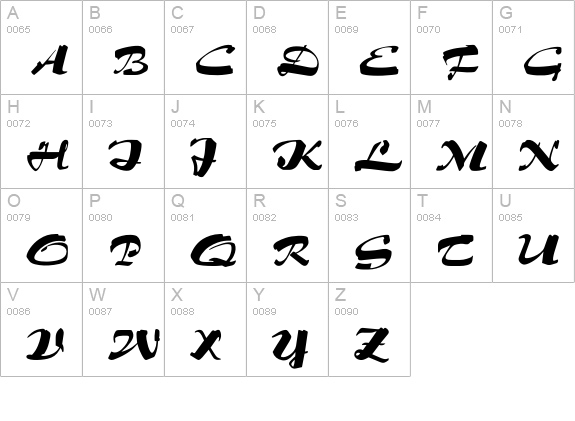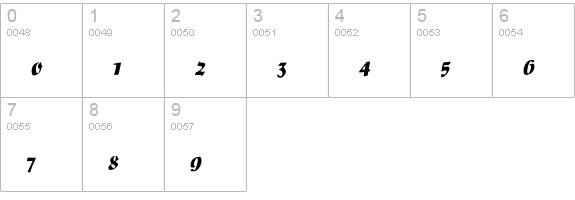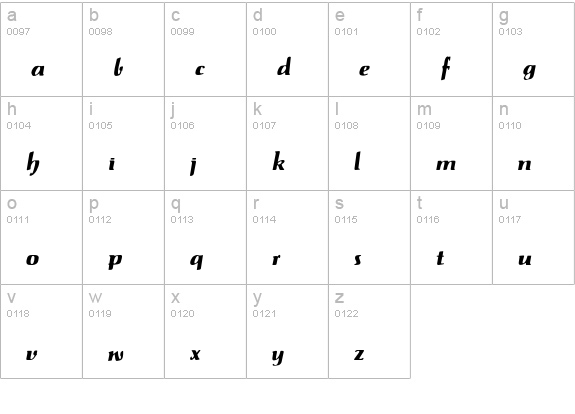
SaltoFont Font Details
SaltoFont is a stunning font that effortlessly combines elegance and versatility. With its sleek and modern design, this font is perfect for a wide range of creative projects, from branding and logo design to website headers and magazine layouts. What sets SaltoFont apart is not just its captivating aesthetic appeal, but also the fact that it is available for free. Yes, you read that right! SaltoFont can be freely downloaded at FontsMarket.com, making it accessible to everyone who wants to add a touch of sophistication to their designs without breaking the bank. But don't let its affordability fool you – SaltoFont is a high-quality typeface that exudes professionalism and refinement. Its clean lines and balanced proportions make it easy to read, while its subtle curves and unique letterforms add a touch of personality. Whether you're a seasoned designer or just starting out, SaltoFont is a must-have in your font collection. Its versatility allows it to effortlessly adapt to various design styles and themes, making it a reliable choice for any project. So go ahead and explore the endless possibilities that SaltoFont offers – from sleek and minimalistic designs to bold and eye-catching creations, this font has got you covered. So why wait? Take advantage of the opportunity to download SaltoFont for free at FontsMarket.com and elevate your designs to a whole new level of sophistication and creativity. Don't miss out on this incredible font that combines elegance, versatility, and accessibility – get SaltoFont today and let your designs shine!